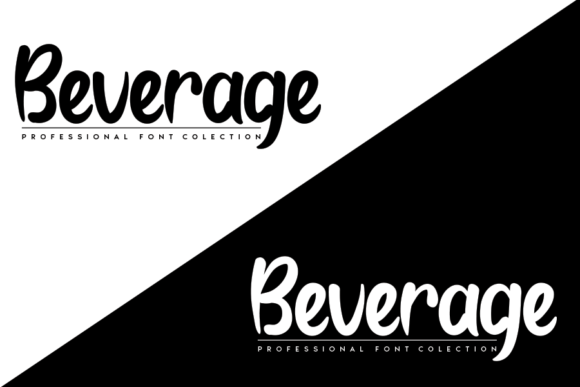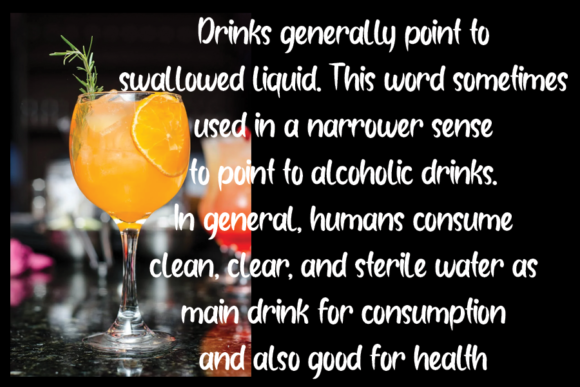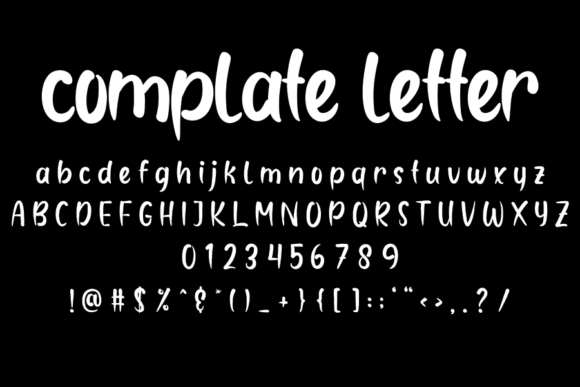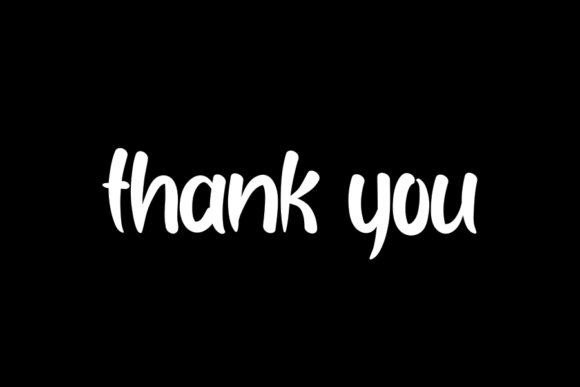
Beverage Font: The Ultimate Choice for Creative Projects
Are you a designer, crafter, or DIY enthusiast looking for a font that can add a touch of friendliness and playfulness to your creative projects? Look no further than Beverage Font! This adorable display font is perfect for anyone who wants to turn their ideas into stunning works of art. In this article, we’ll dive into the world of Beverage Font and explore its features, benefits, and uses.
What is Beverage Font?
Beverage Font is a cute and casual display font that exudes an incredibly friendly feel. Its unique design makes it perfect for a wide range of creative projects, from social media graphics and Instagram posts to calligraphy scripts and DIY crafts. With Beverage Font, you can add a personal touch to your designs and make them stand out from the crowd.
Key Features of Beverage Font
- Cute and Casual Design: Beverage Font has a playful and approachable design that makes it perfect for creative projects that require a friendly touch.
- Display Font: This font is specifically designed as a display font, making it ideal for headlines, titles, and other prominent text elements.
- Incredibly Friendly Feel: The font’s design is carefully crafted to evoke a sense of warmth and approachability, making it perfect for projects that require a personal touch.
- Multipurpose: Beverage Font can be used for a wide range of creative projects, from social media graphics to DIY crafts.
Benefits of Using Beverage Font
So, why should you choose Beverage Font for your creative projects? Here are just a few benefits of using this amazing font:
- Easy to Read: Despite its playful design, Beverage Font is incredibly easy to read, making it perfect for projects that require clear communication.
- Highly Versatile: This font can be used for a wide range of projects, from formal to informal, and can be paired with other fonts to create stunning combinations.
- Unique and Creative: Beverage Font is a one-of-a-kind font that can add a touch of personality to your designs and help them stand out from the crowd.
- Perfect for DIY Projects: Whether you’re working on a craft project or a DIY endeavor, Beverage Font is the perfect choice for adding a personal touch.
Using Beverage Font for Instagram and Social Media
In today’s digital age, social media is an essential platform for designers, crafters, and DIY enthusiasts to showcase their work. Beverage Font is the perfect choice for Instagram and social media graphics, as it can add a touch of friendliness and approachability to your posts. Here are a few tips for using Beverage Font on social media:
- Use it for Headlines and Titles: Beverage Font is perfect for creating eye-catching headlines and titles that can grab the attention of your followers.
- Pair it with Other Fonts: Experiment with pairing Beverage Font with other fonts to create stunning combinations that can add visual interest to your posts.
- Use it for Quotes and Captions: Beverage Font is also perfect for adding quotes and captions to your posts, as it can add a touch of personality and whimsy.
Using Beverage Font for Calligraphy and DIY Projects
Beverage Font is not just limited to digital projects; it’s also perfect for calligraphy and DIY projects. Here are a few ways you can use Beverage Font for your next DIY project:
- Use it for Hand Lettering: Beverage Font can be used as a guide for hand lettering, allowing you to create beautiful and unique pieces of art.
- Add it to Your Crafts: Whether you’re working on a scrapbooking project or a craft endeavor, Beverage Font can be used to add a personal touch.
- Use it for Signs and Banners: Beverage Font is perfect for creating eye-catching signs and banners that can add a touch of personality to any event or gathering.
In conclusion, Beverage Font is a versatile and creative font that can add a touch of friendliness and approachability to any creative project. Whether you’re a designer, crafter, or DIY enthusiast, this font is perfect for turning your ideas into stunning works of art. With its cute and casual design, incredibly friendly feel, and multipurpose uses, Beverage Font is the ultimate choice for anyone looking to add a personal touch to their projects.